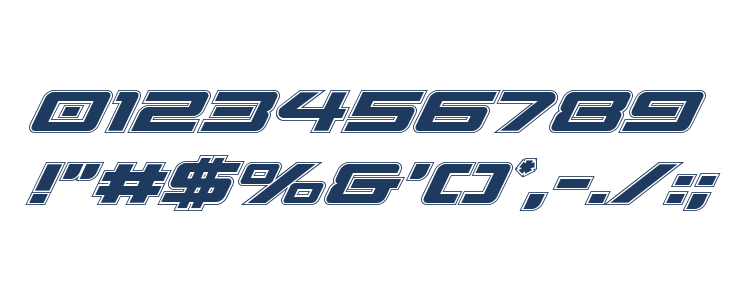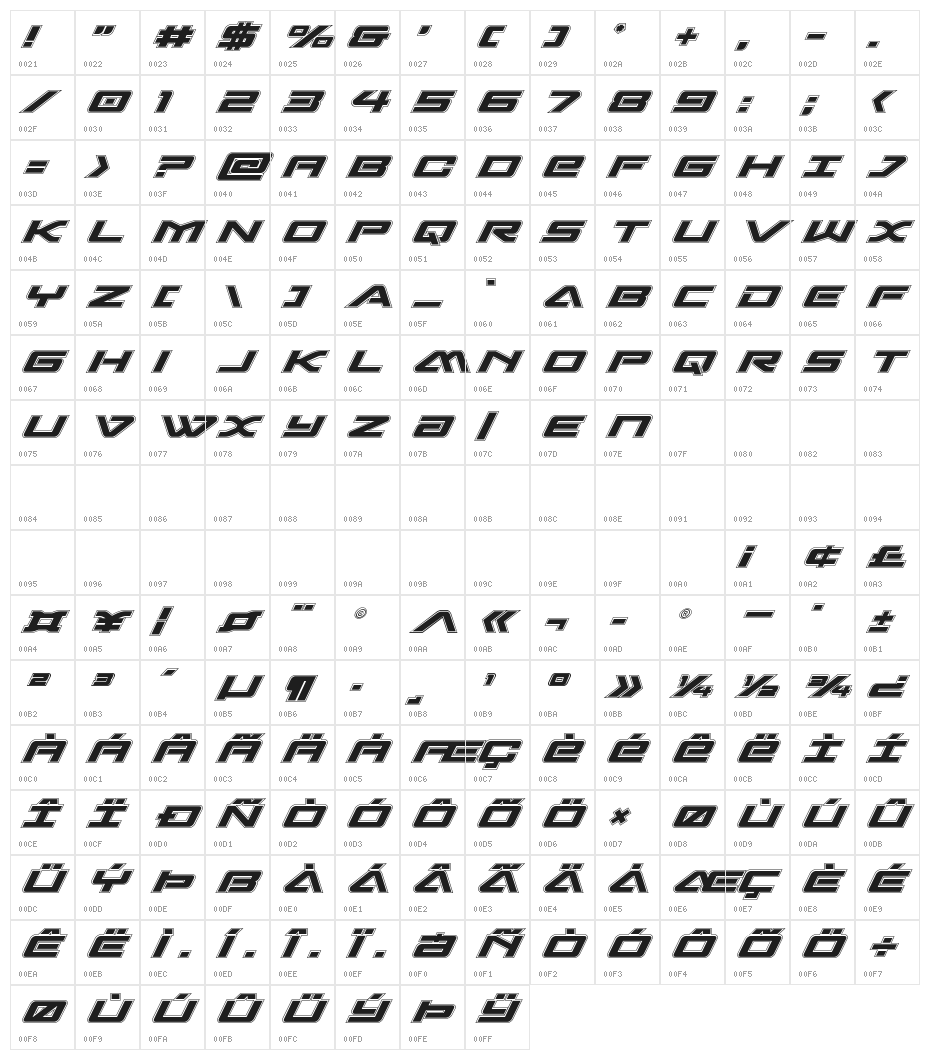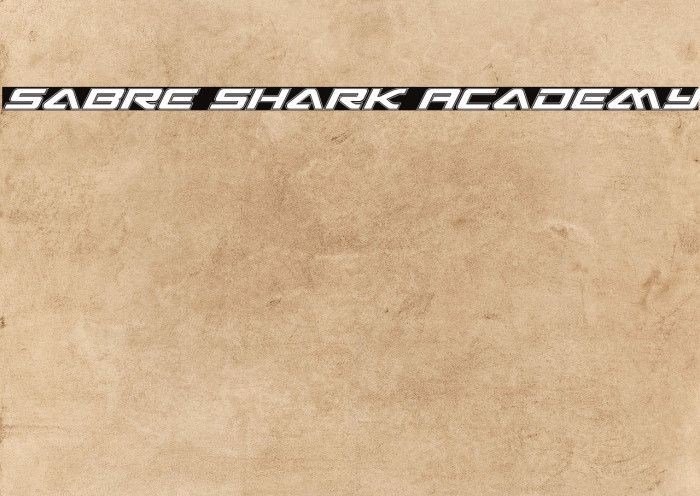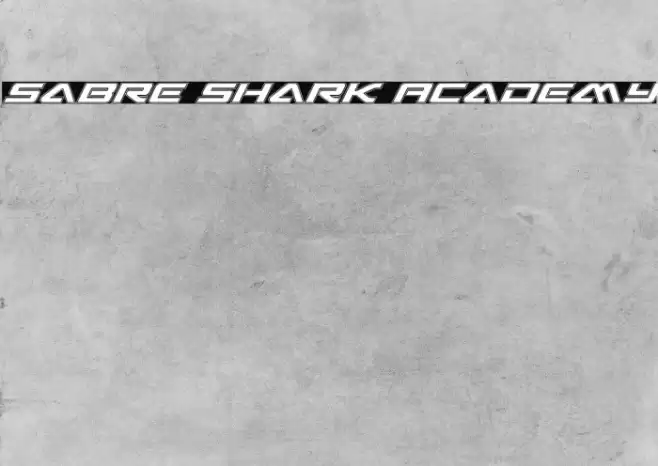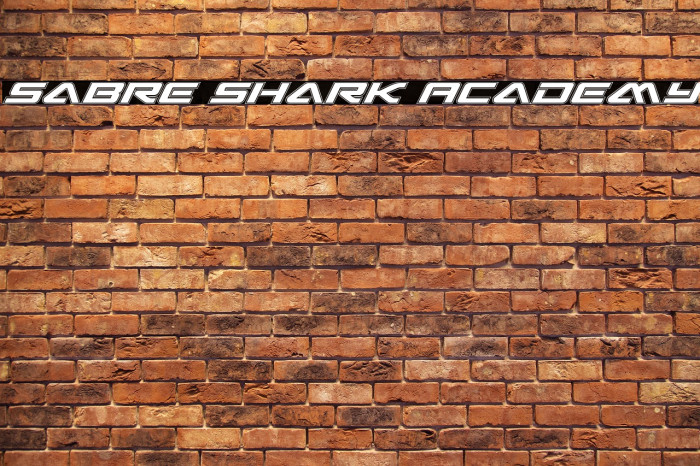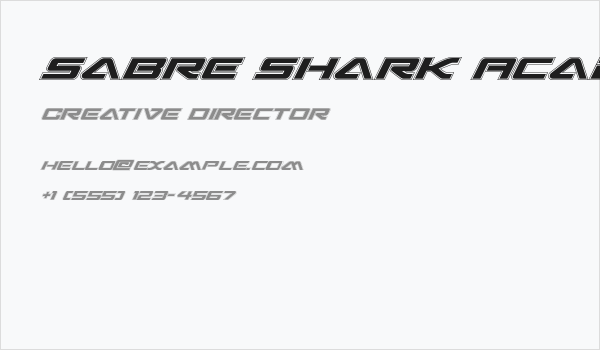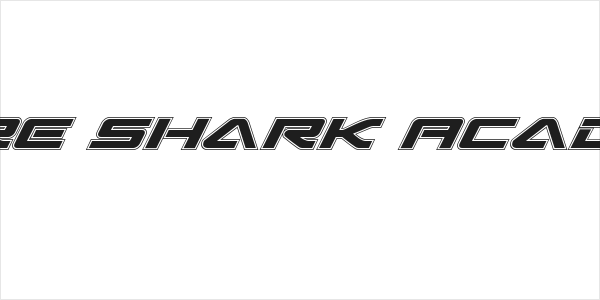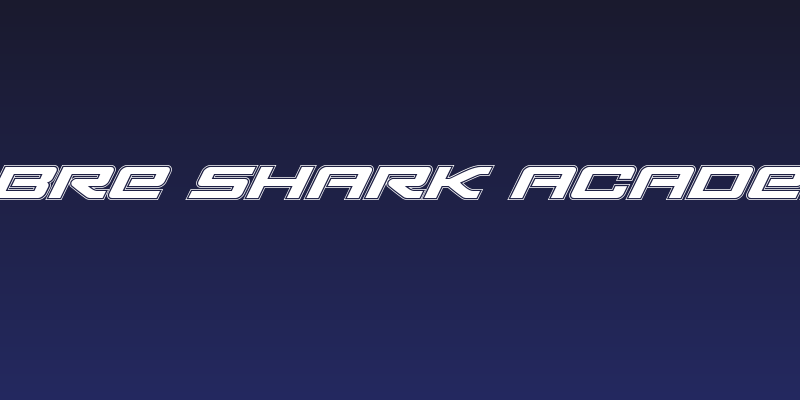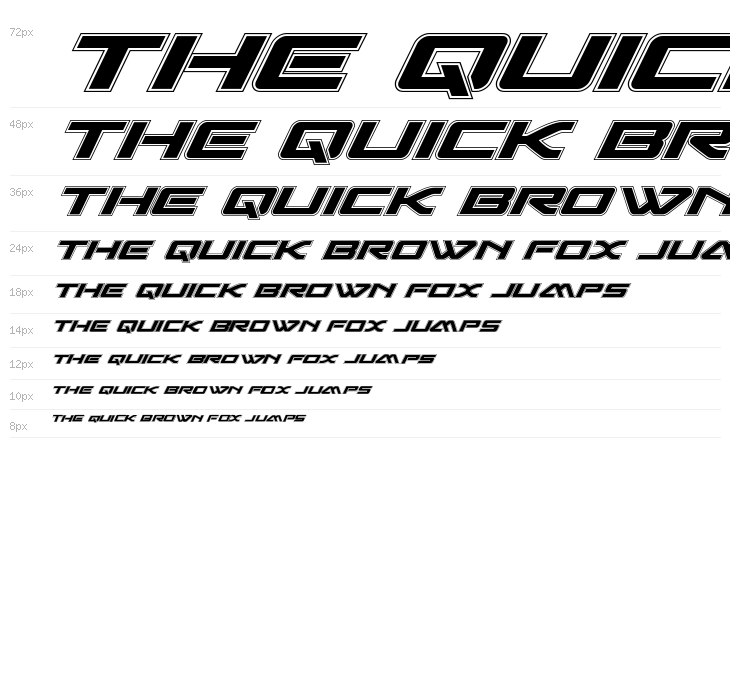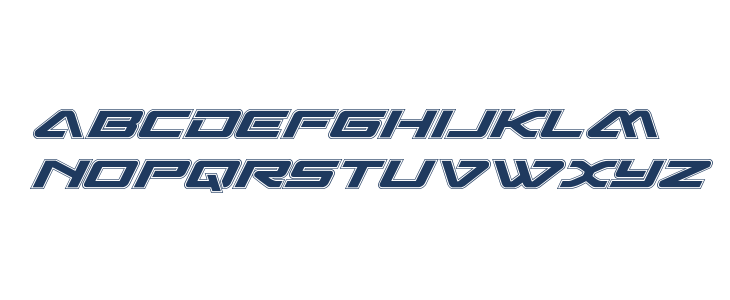
Sabre Shark Academy Font
Sabre Shark Academy Description
This font features a bold, futuristic design with a distinct geometric structure. Each character is outlined with a double line, creating a dynamic and eye-catching effect. The angular shapes and sharp edges give it a modern and technological feel, making it ideal for projects that require a strong visual impact. The uppercase and lowercase letters maintain a consistent style, while the numbers and special characters complement the overall aesthetic. This font is perfect for use in digital media, gaming, and technology-related branding.
| Proposed Projects | Ideal for digital media, gaming titles, technology branding, and futuristic designs. |